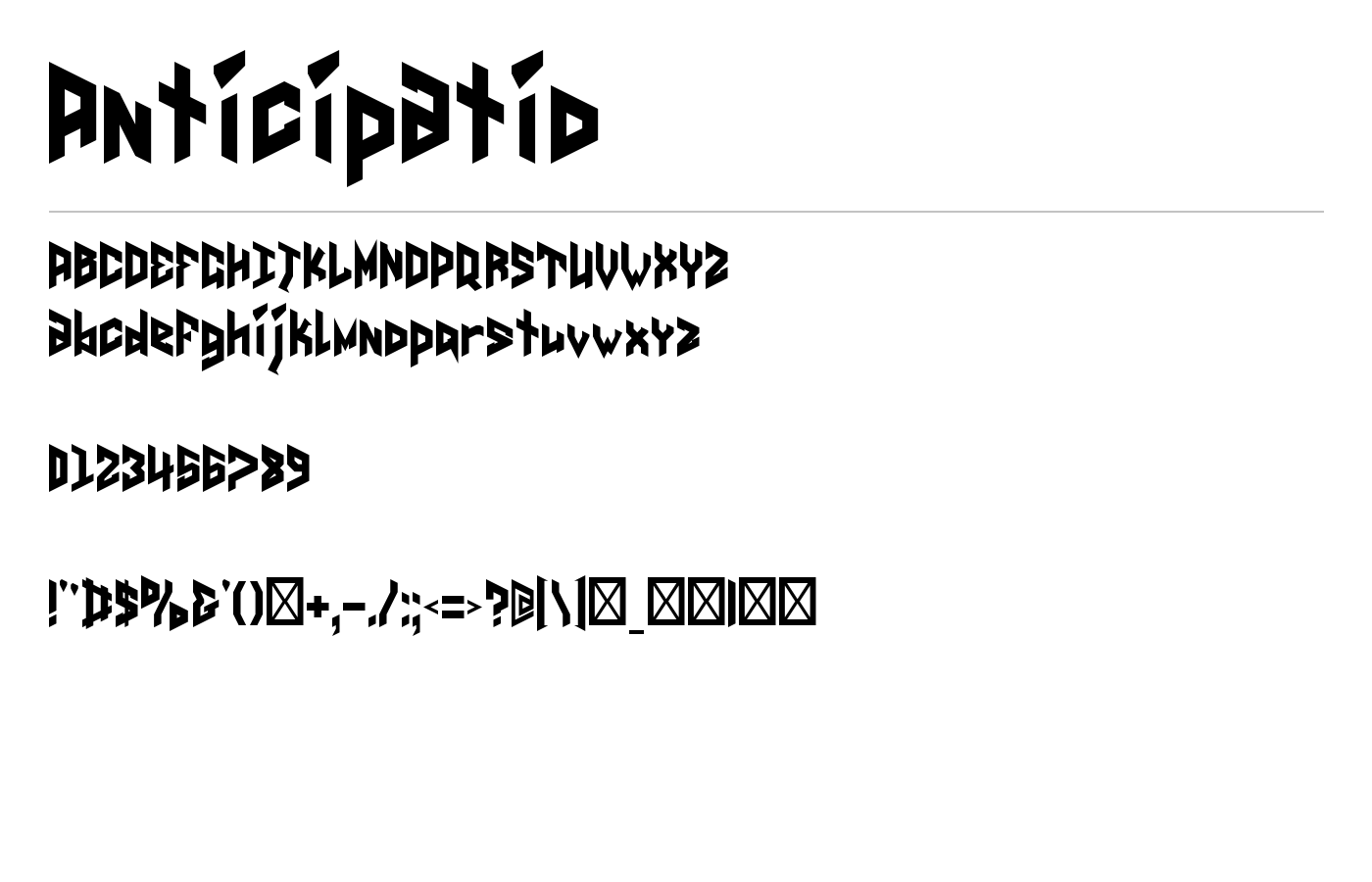
Anticipatio is a bold, angular display font with a strong geometric style and sharp edges that give it a modern and dynamic feel. Its condensed letterforms and single-weight strokes create a striking, futuristic look perfect for eye-catching headlines, logos, or branding in creative and tech-forward industries. This font works best where an edgy, distinctive personality is needed to stand out and make a memorable impression.
Anticipatio Font
About Anticipatio Font
| Font family | Anticipatio Font |
| Languages supported | Latin, Symbols, Armenian |
| Designer | Doug Peters |